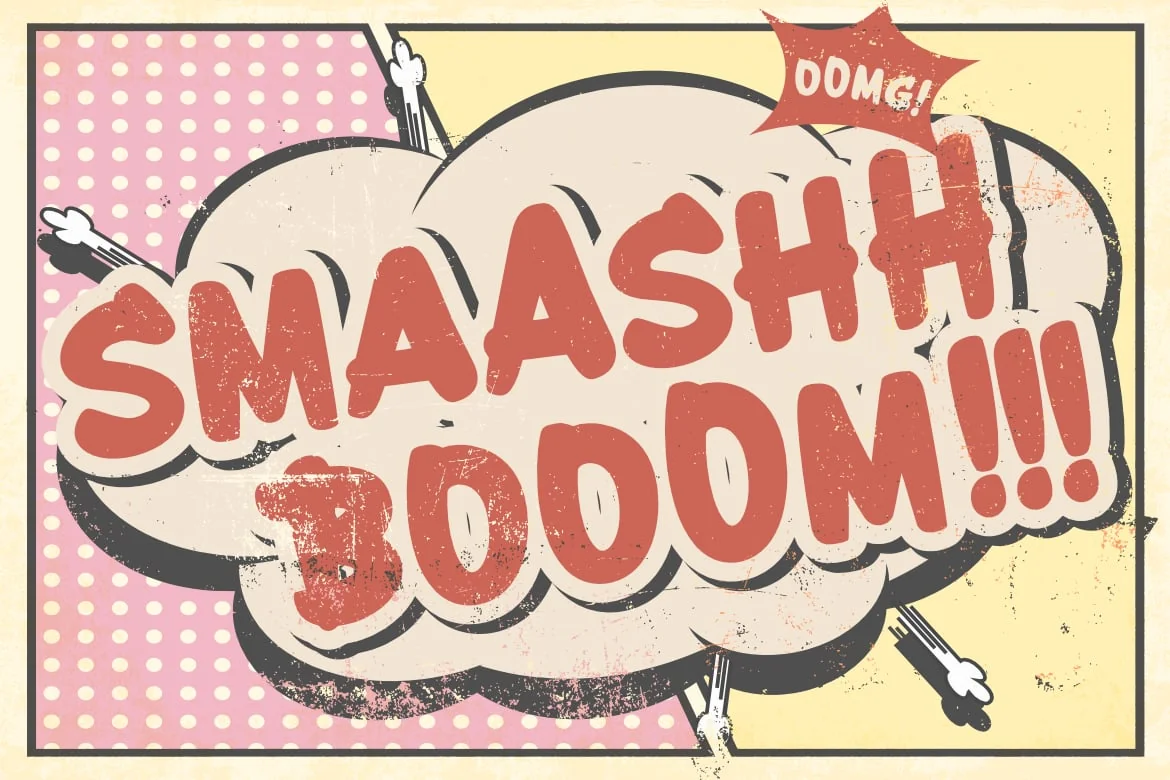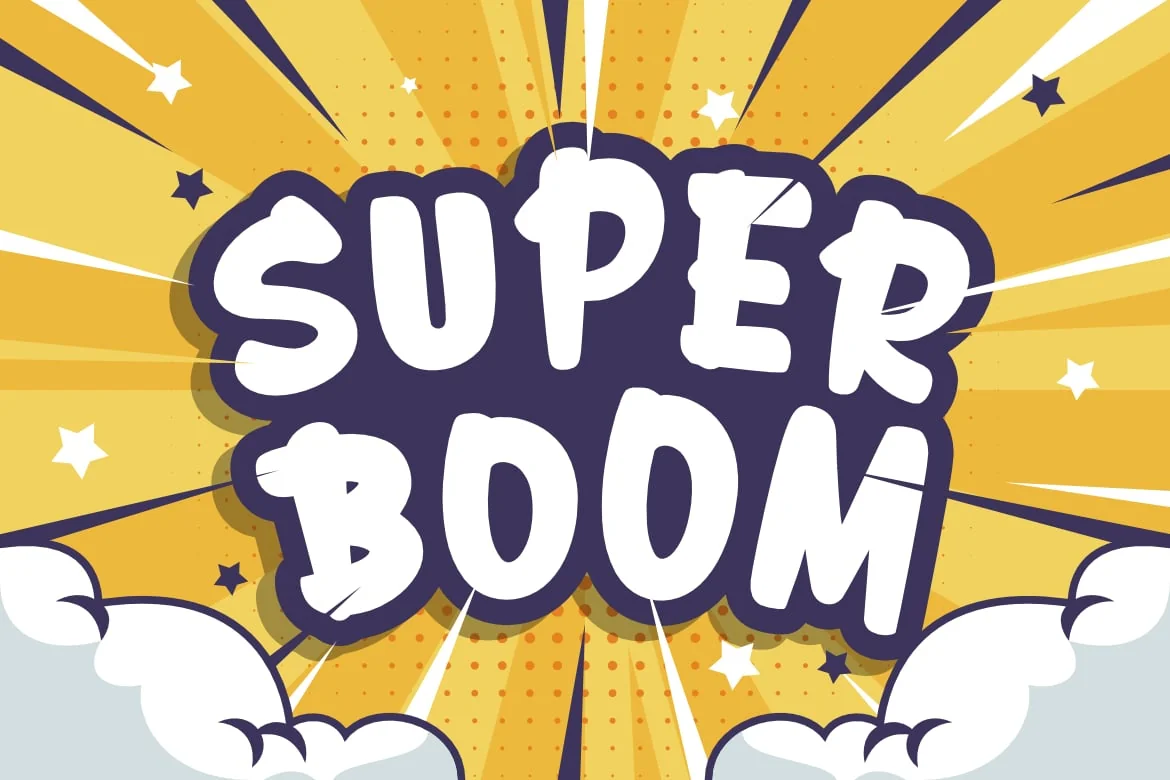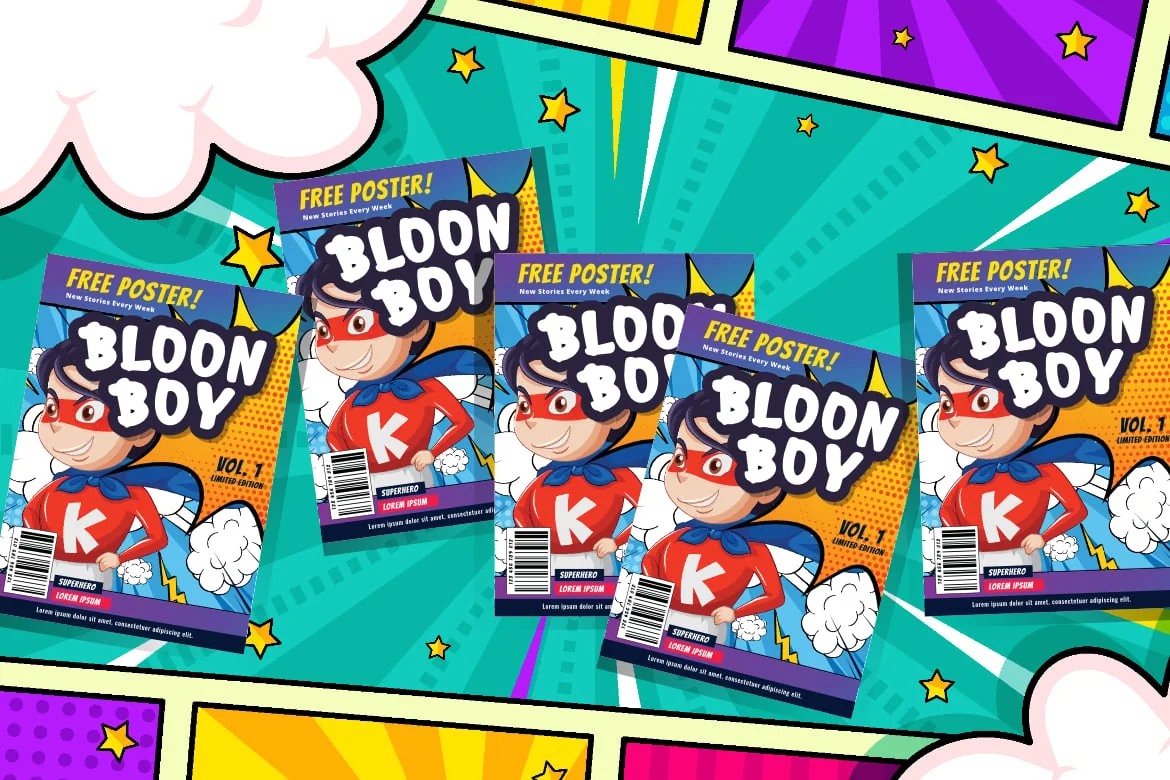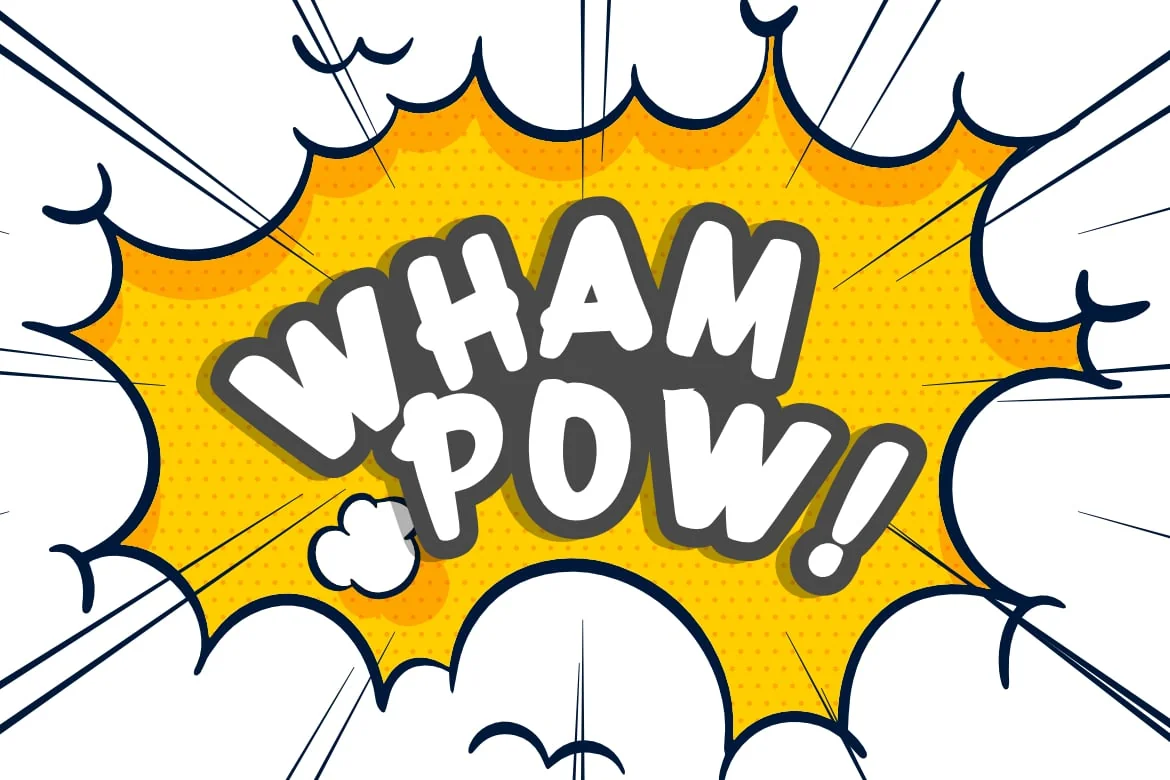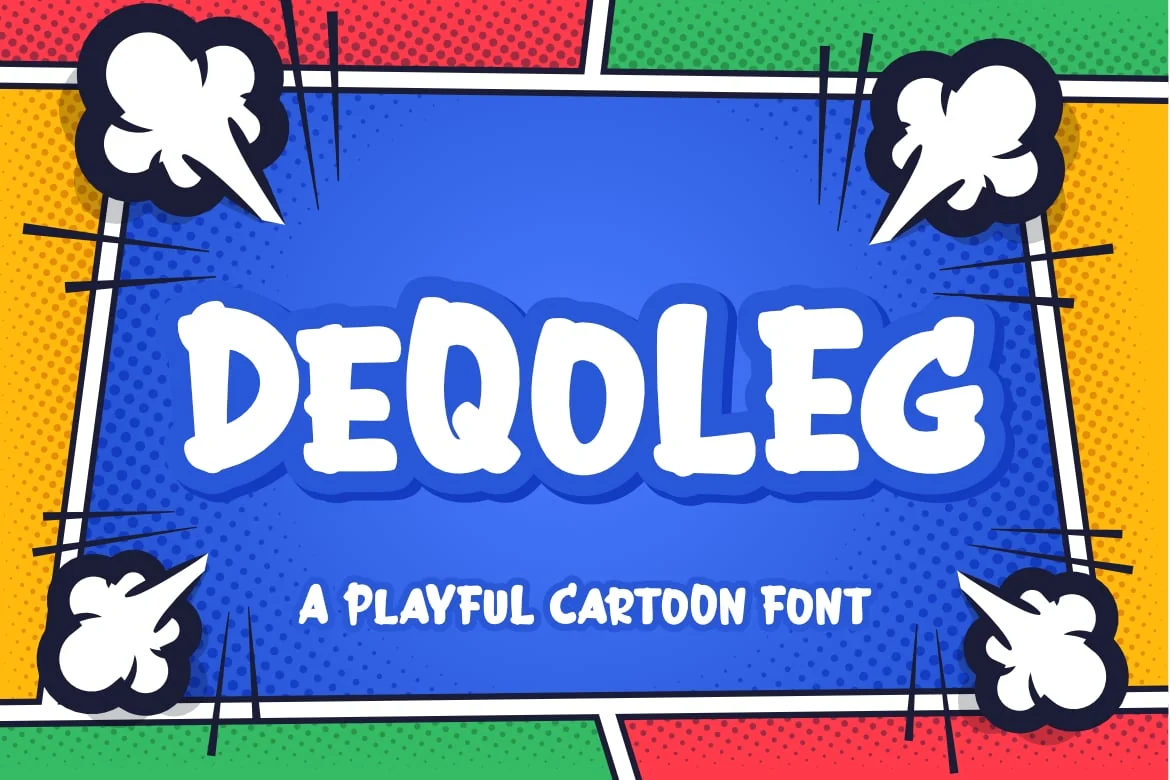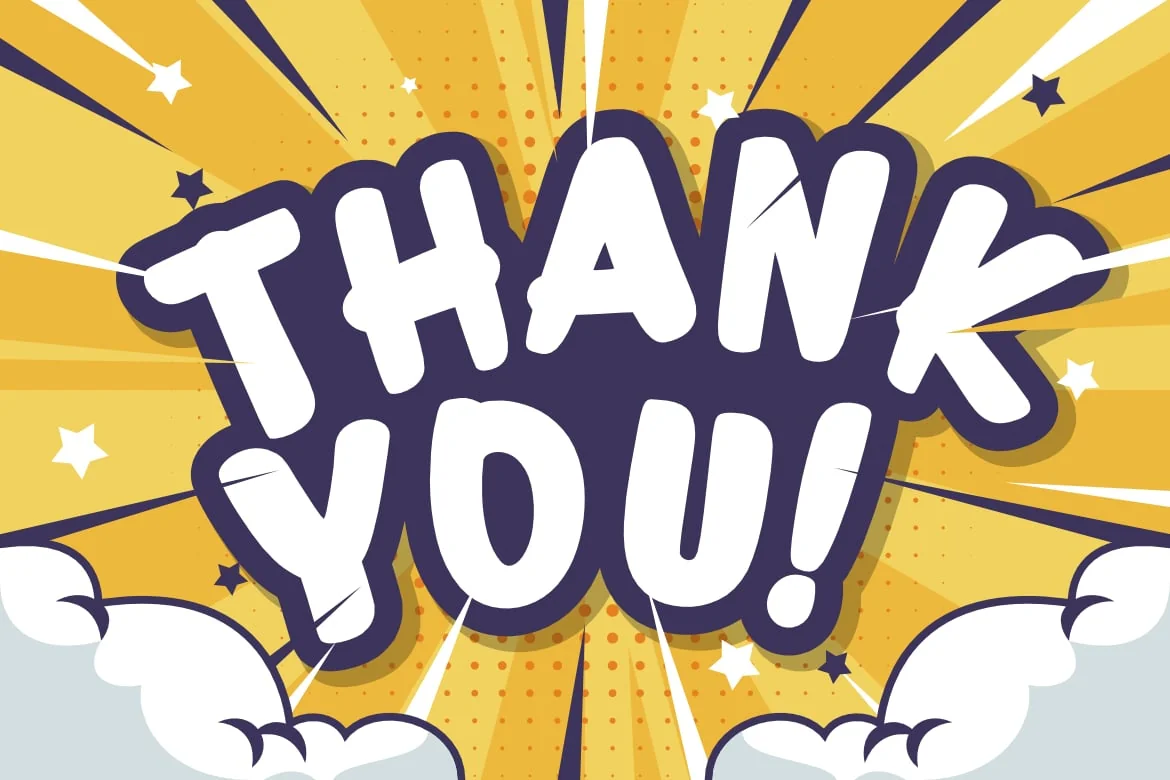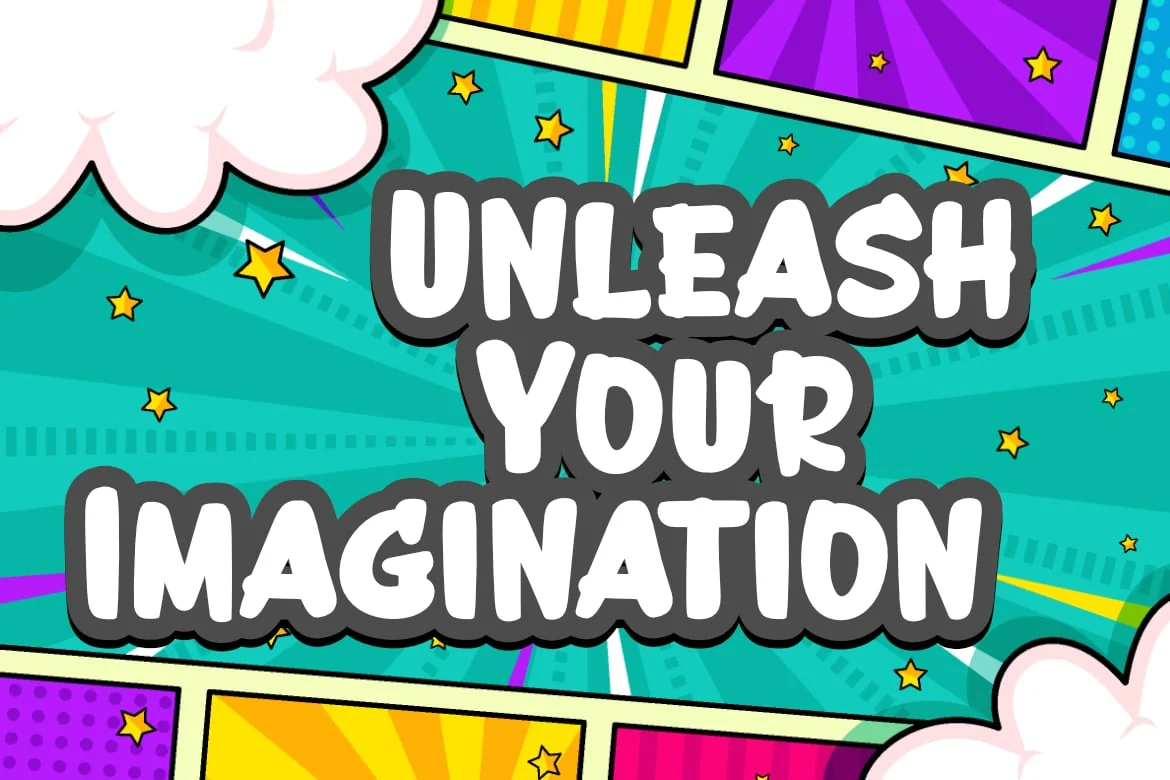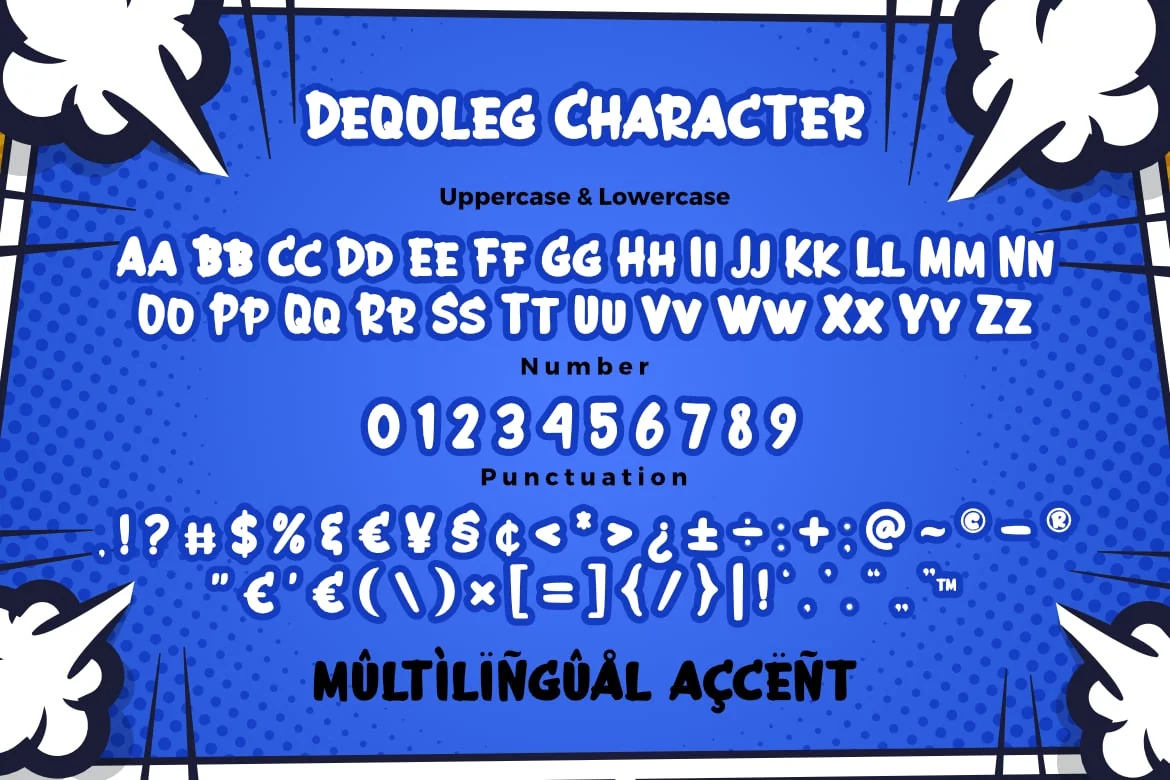
Deqoleg a Playful Cartoon Font
DEQOLEG a Playful Cartoon Font, This font is made with a high premium quality level which you can use as flyers, quotes, posters, banners, packaging, merchandise, logotypes and much more.